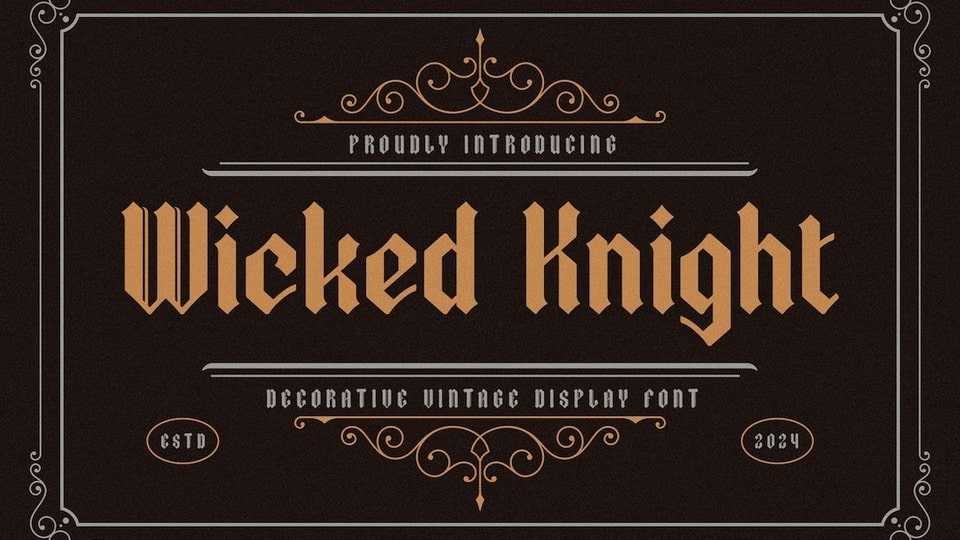
Download Wicked Knight font, a bold and eye-catching blackletter typeface that is perfect when used for adding a touch of gothic feel to whatever you’re designing.
Designer: ThemeWarrior